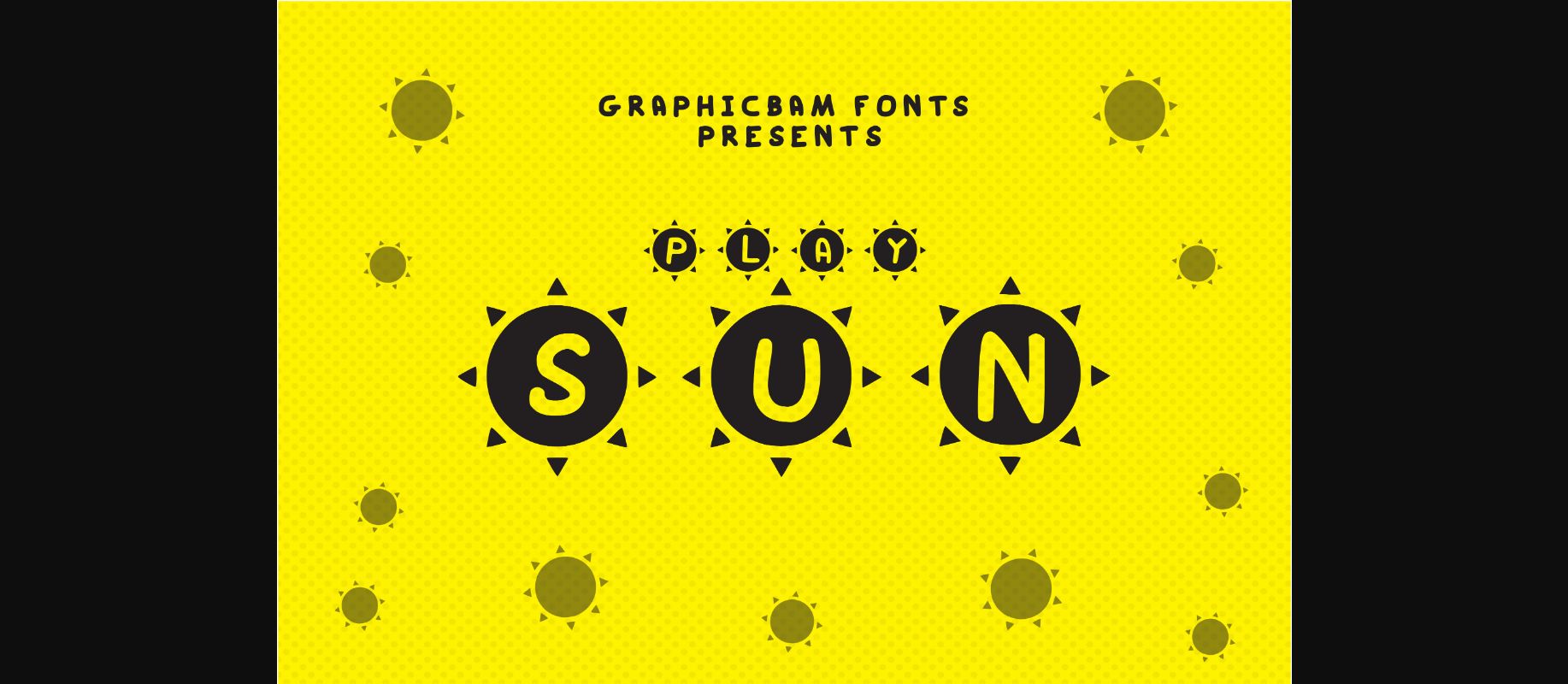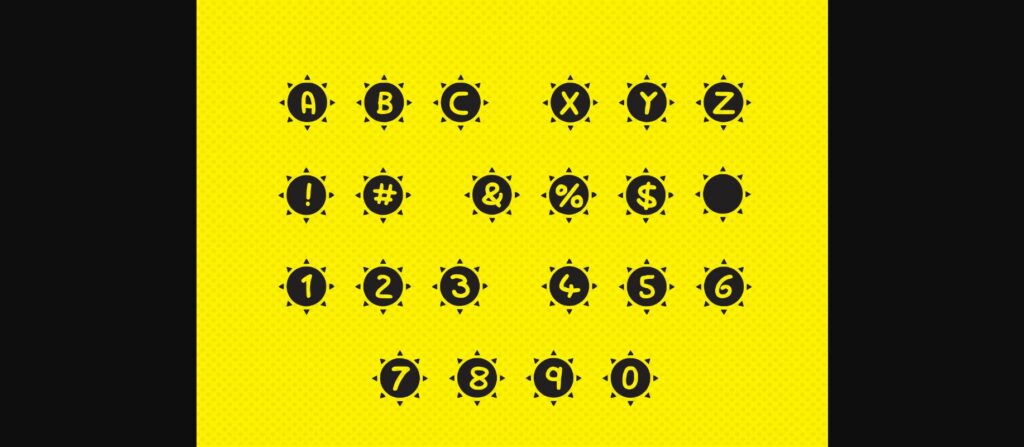
About Play Sun Font
Play Sun is the perfect decorative font to brighten up your projects! Use it to create outstanding book covers, children’s designs, school designs, posters, social media posts, or more.